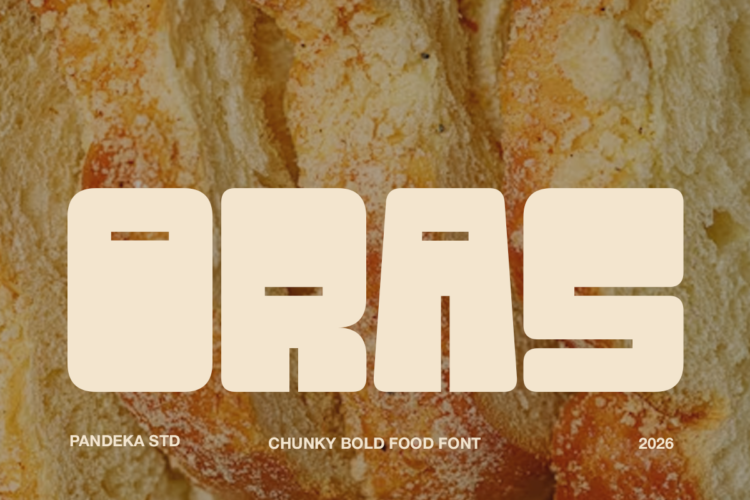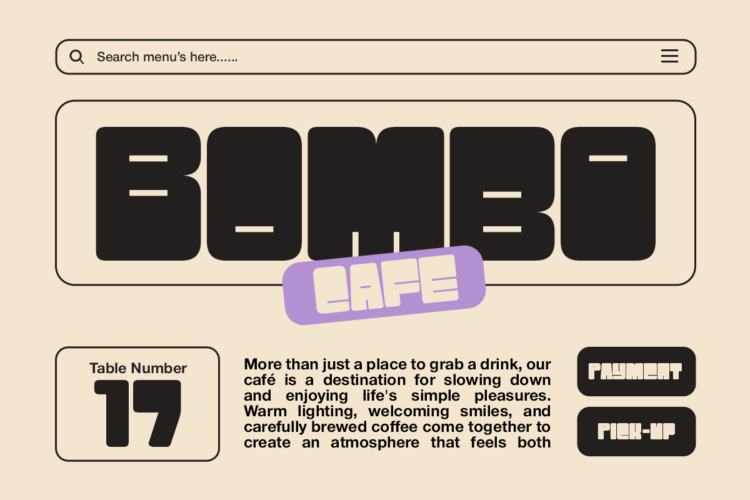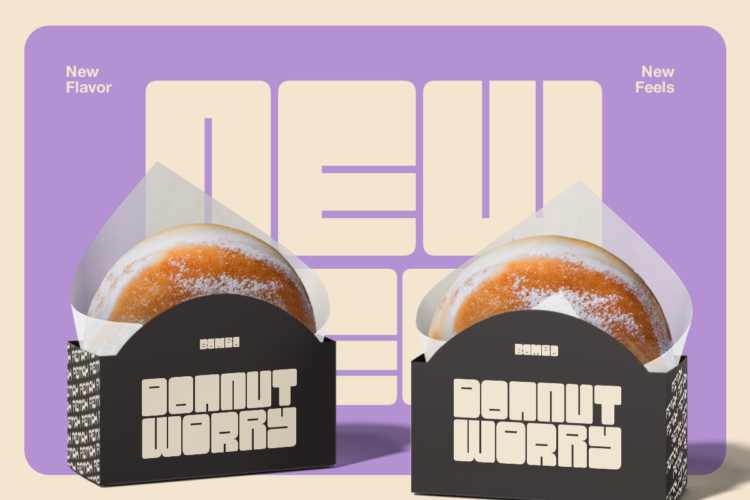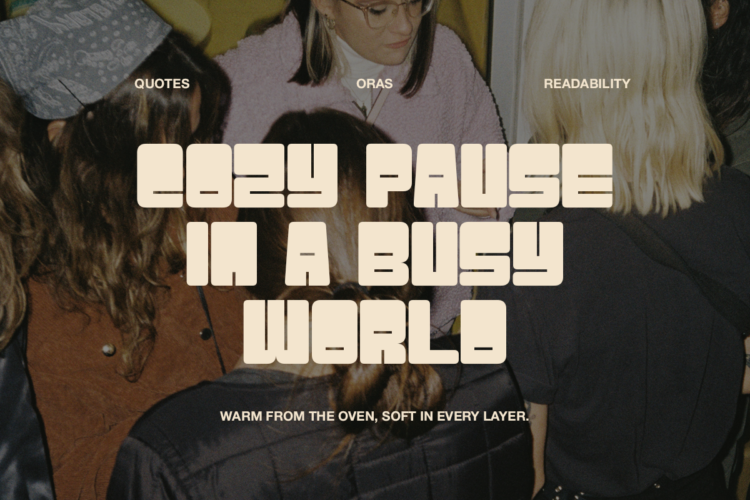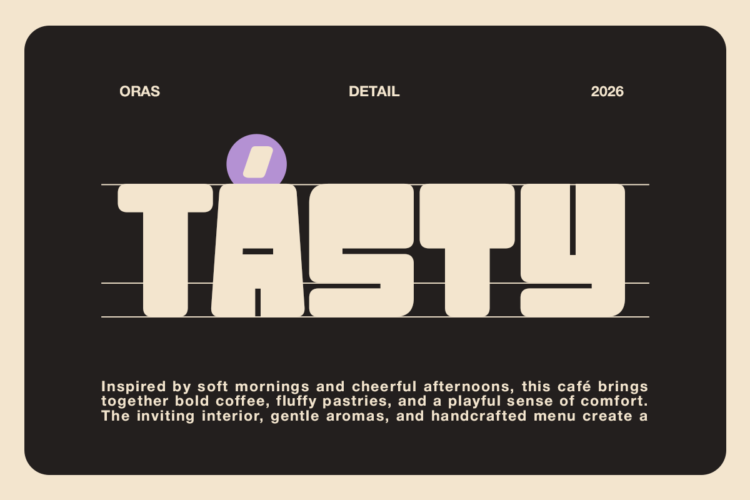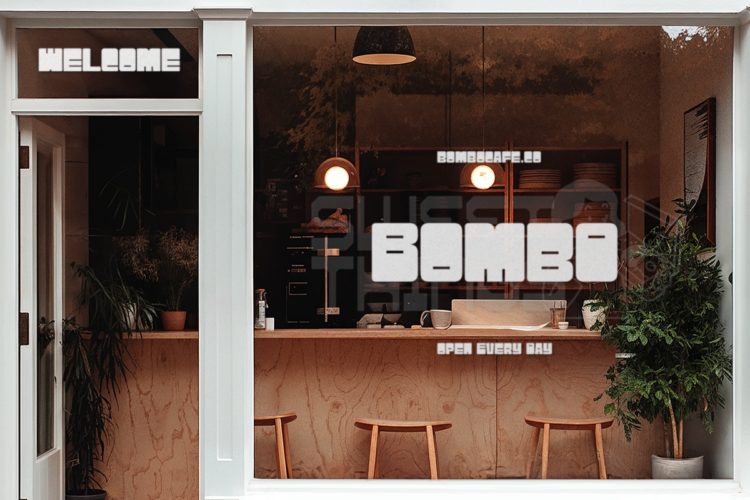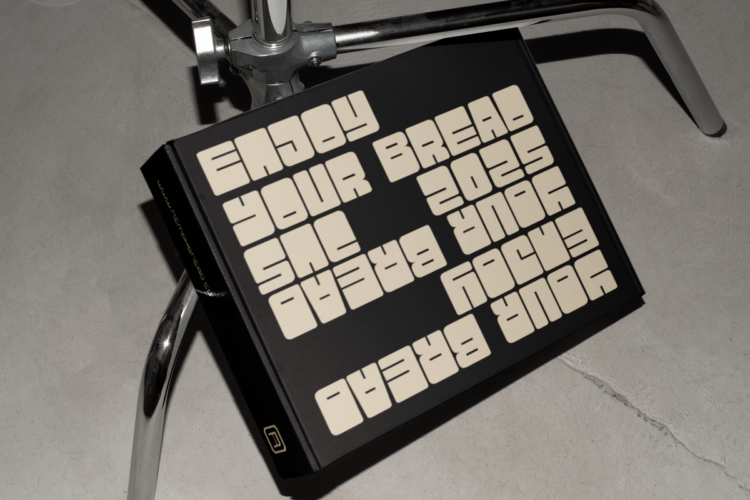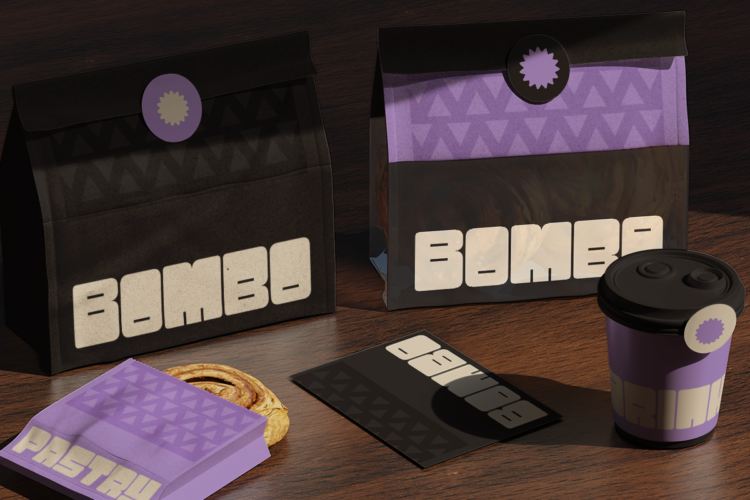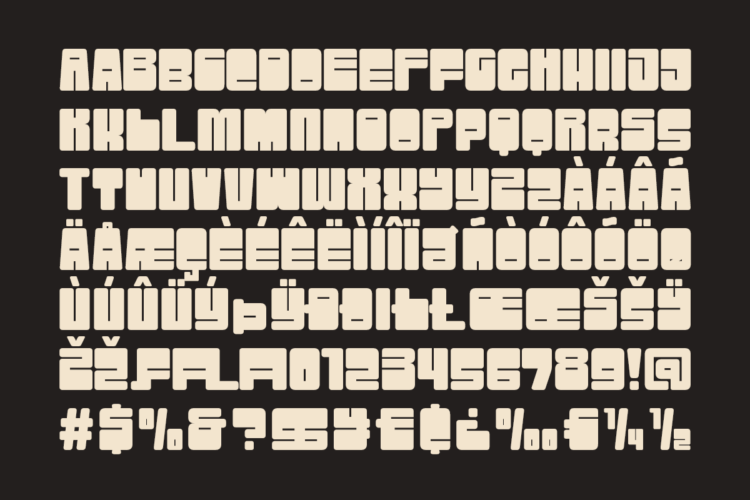
Oras Regular
Oras Slant
Oras is a chunky bold food font crafted with thick geometric letterforms, playful proportions, and a modern blocky style that instantly captures attention. Its bold appearance creates a strong visual impact, making it perfect for café branding, fast food identities, snack packaging, menu boards, product labels, posters, restaurant signage, and contemporary food display projects. The clean construction delivers excellent readability while maintaining a fun and energetic personality across various branding applications.
Available in 2 styles: Regular and Slant, Oras offers flexibility for both clean layouts and dynamic compositions. Equipped with multilingual support, this font is ideal for logos, food packaging, social media graphics, advertising materials, promotional campaigns, coffee shops, burger brands, street food concepts, and modern food businesses seeking a bold and memorable visual identity.
• 2 Style: Regular and Slant
Oras – Chunky Bold Food Font